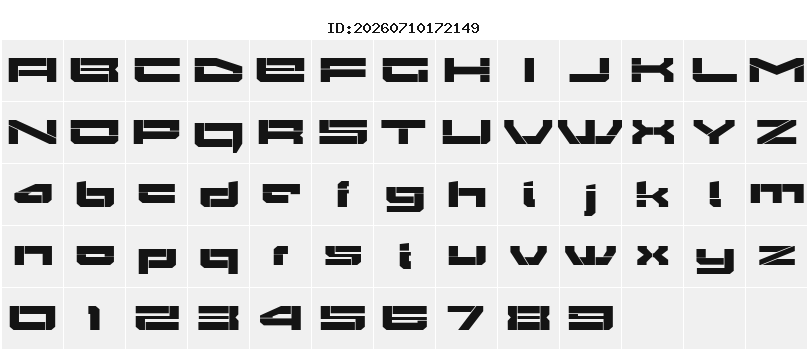
Gendouki Preview
• Font Name: Gendouki
• Font ID: RayLarabie: Gendouki: 2006
• Full Font Name: Gendouki
• Designer: Ray Larabie
• Manufacturer: Ray Larabie
• Description: Katakana characters added in September 2006
About Gendouki.ttf
Gendouki.ttf is a modern, elegant sans-serif font designed for ultimate readability and visual harmony. Perfect for branding, headlines, web design, and print materials.